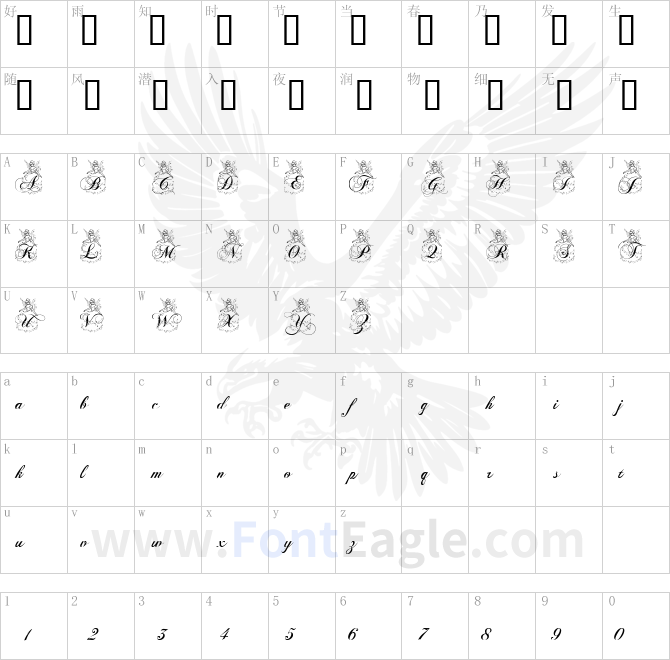
- Font name:AL Cinderella
AL-Cinderella is a great font, widely used in graphic design, single-page menu design, poster design and other fields, and is deeply loved by designers.AL-Cinderella download.